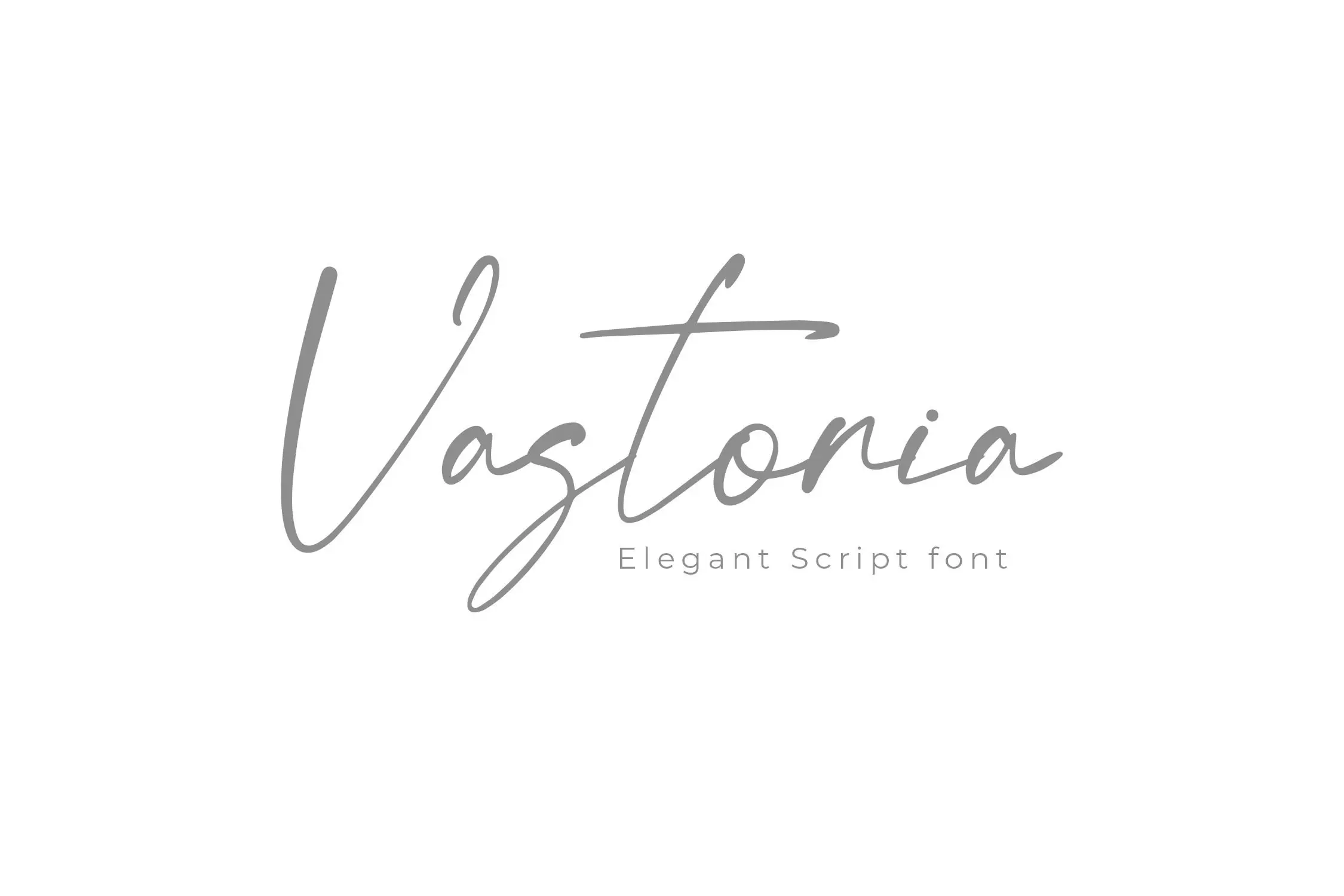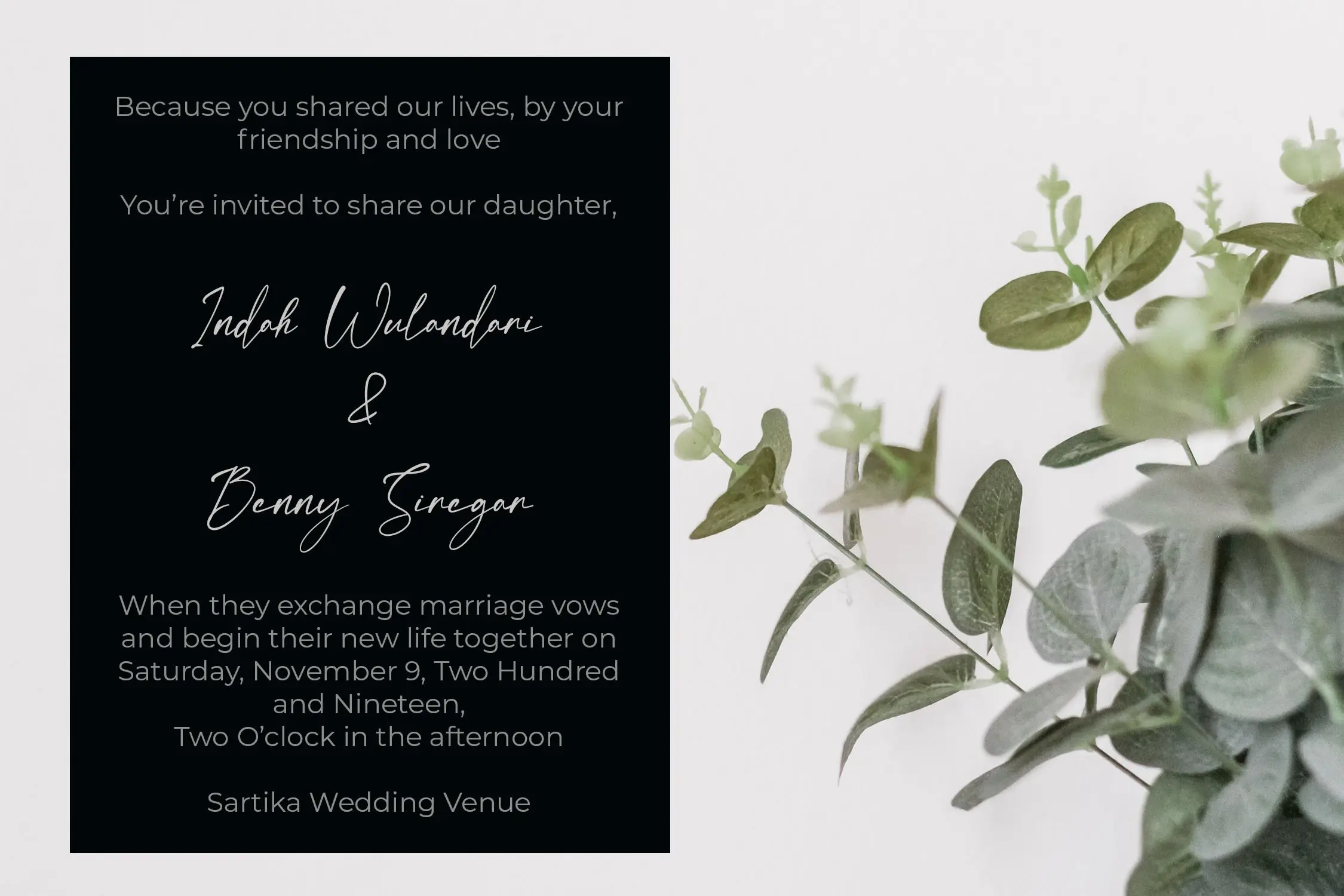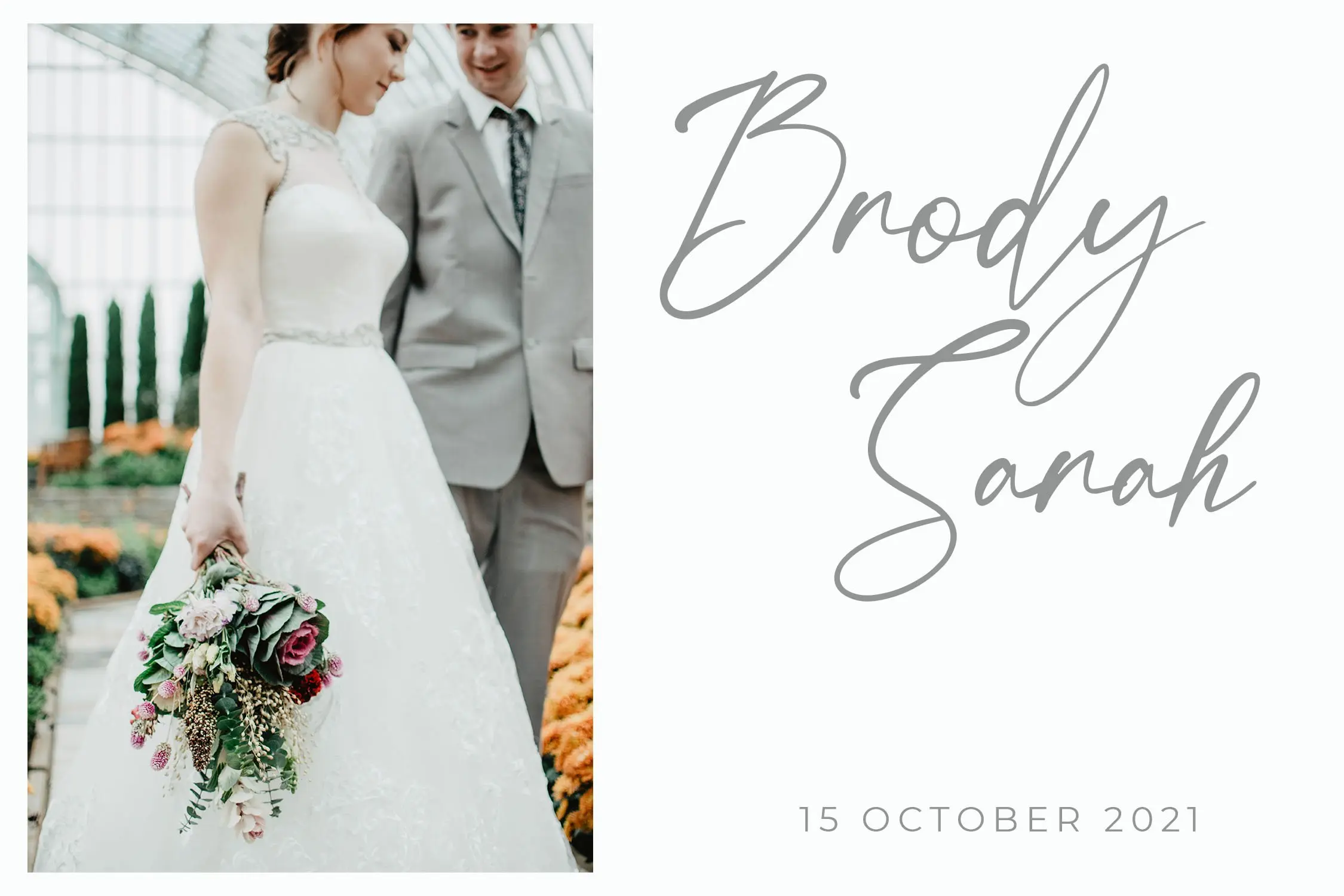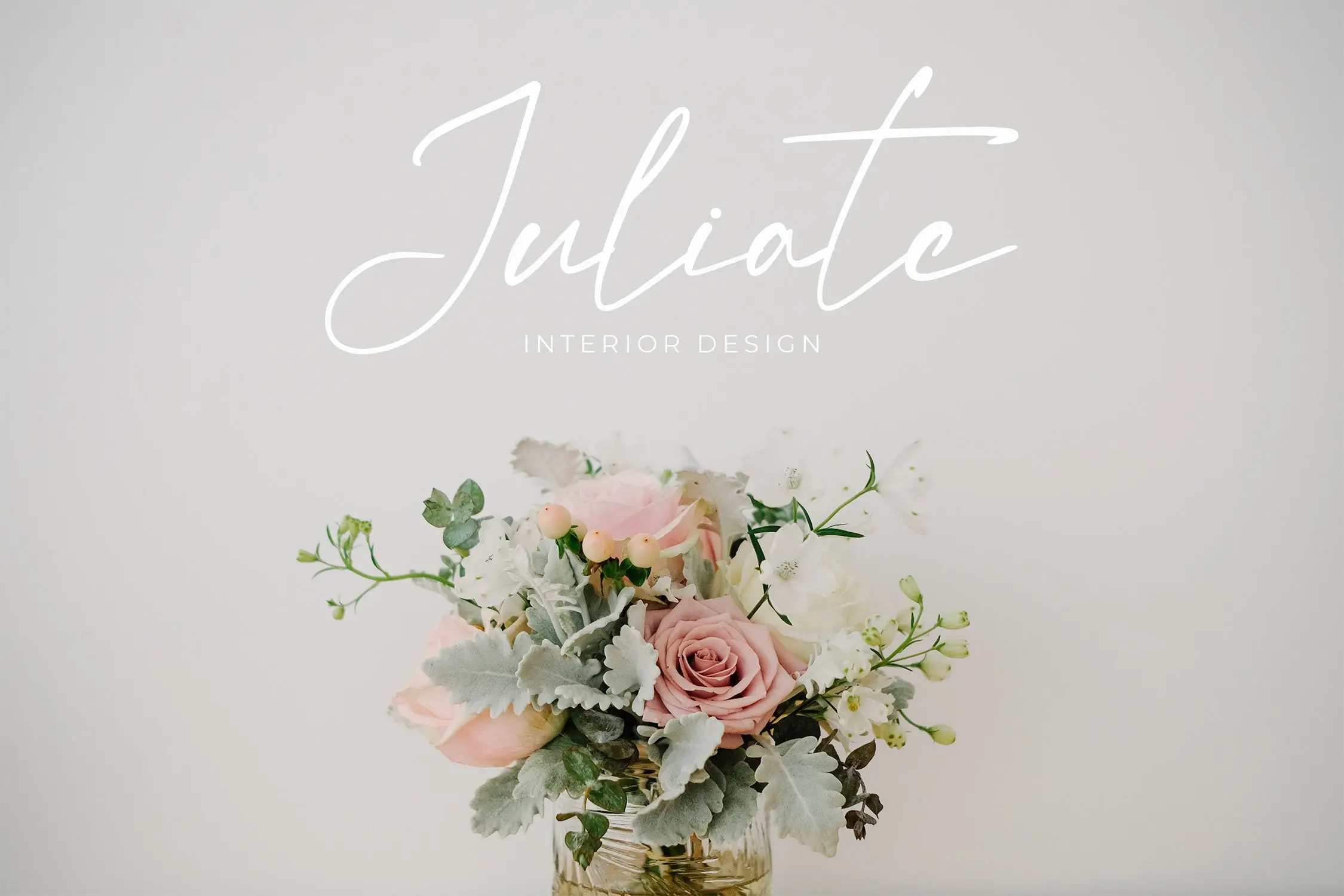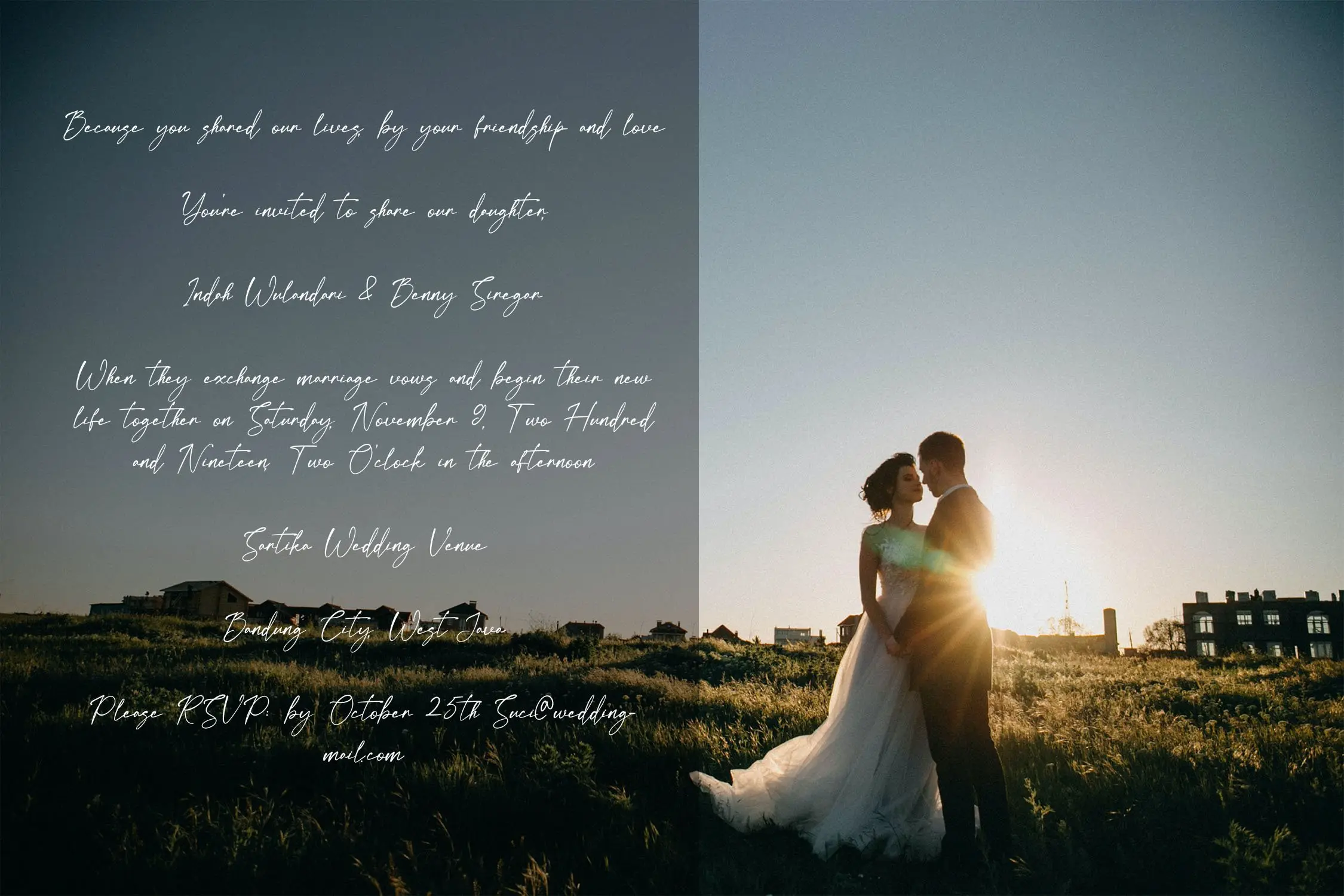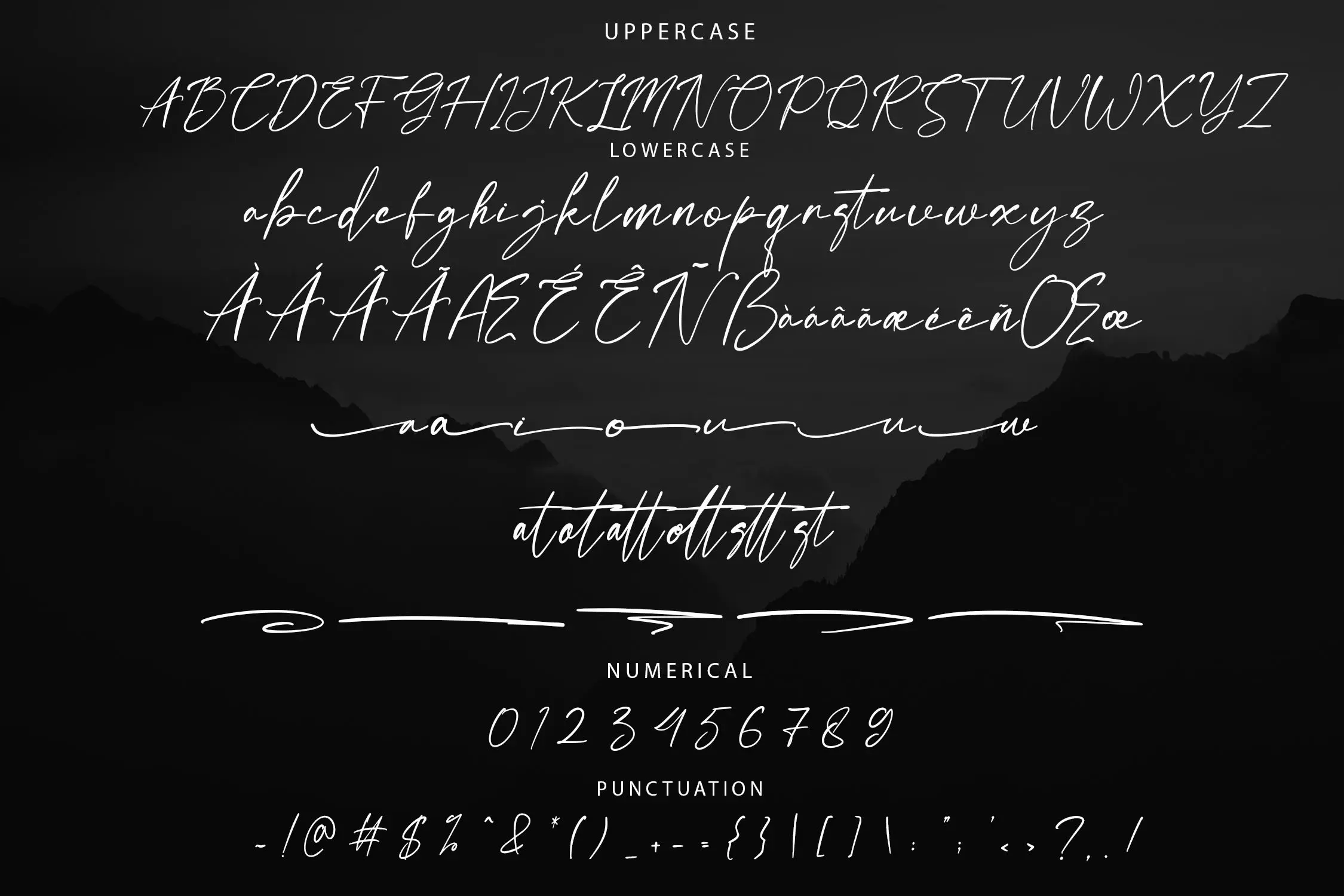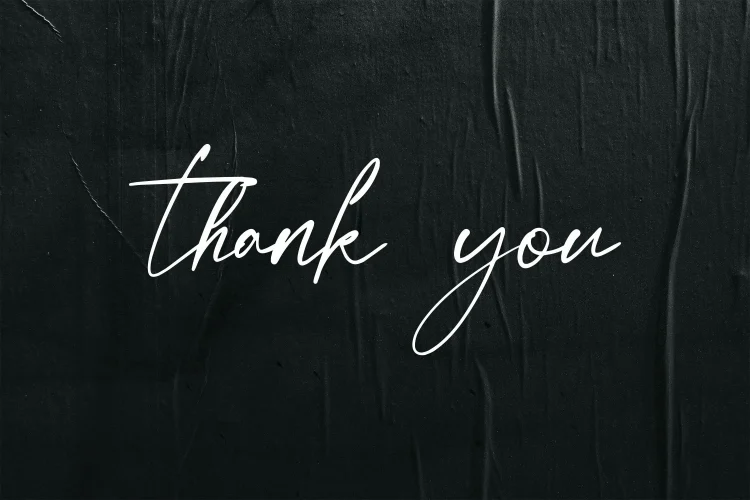
Vastoria is a sophisticated script font with an elegant touch, designed with beautifully unique character shapes. Its graceful style makes it the perfect choice for enhancing the visual appeal of any project, whether for branding, invitations, or packaging. Vastoria adds a luxurious and polished finish to your designs.
Features:
- Ligatures
- Stylistic Alternates
- Swashes
- Multilingual Support